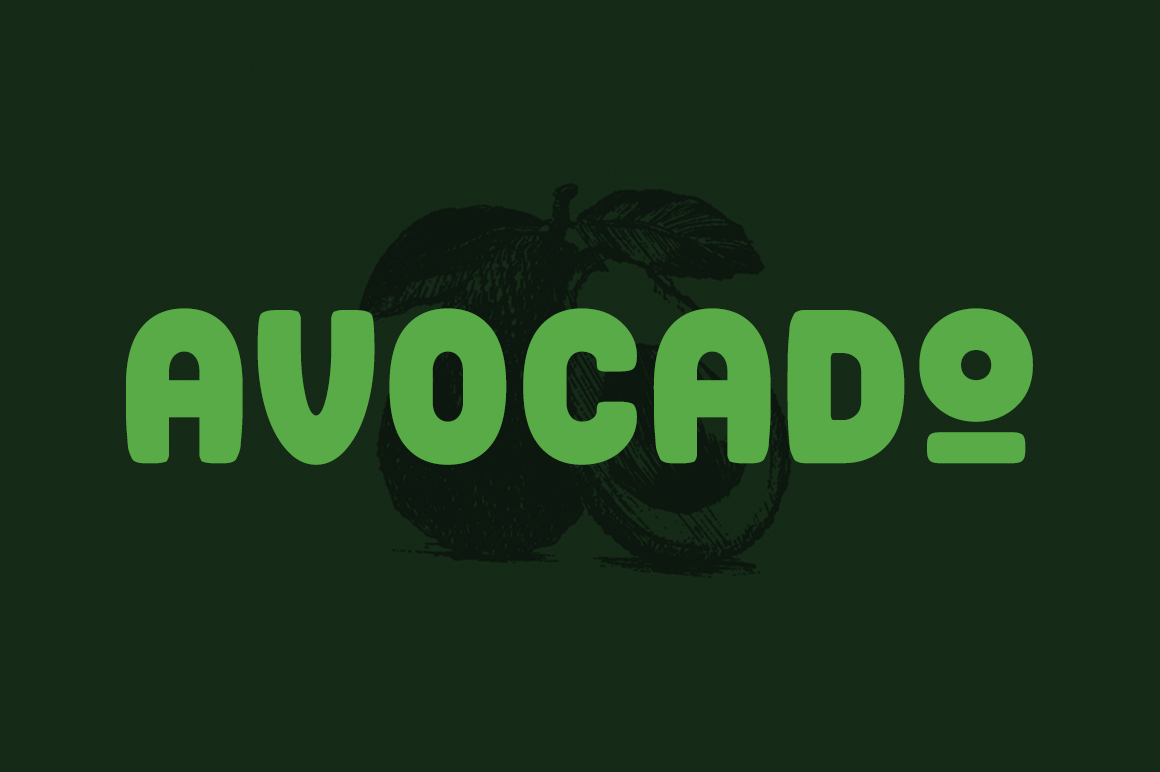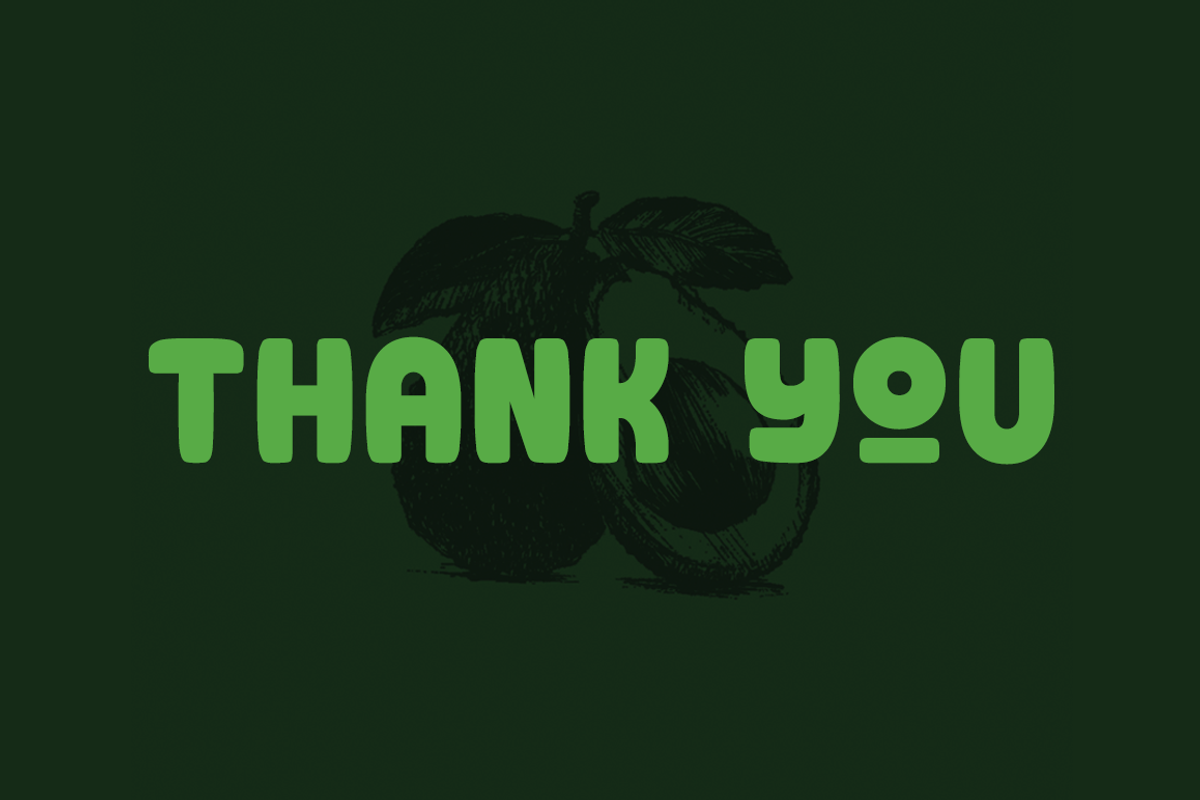
The Avocado Font
The Avocado font is a bold, soft, and juicy font. Play with the uppercase and lowercase to create stunning logotype, headline, poster, book cover or even memes!. Avocado font also comes with wide range of multilingual support. But unfortunately, it doesn't support greek and cyrilic yet.